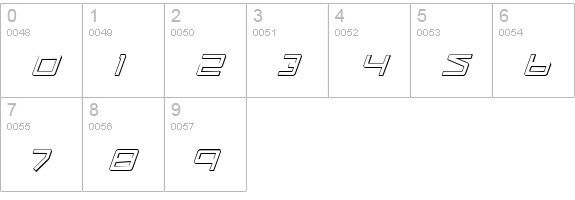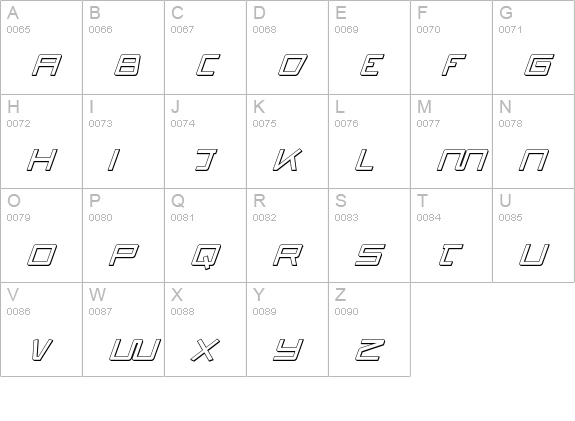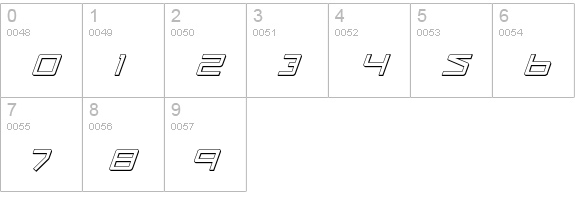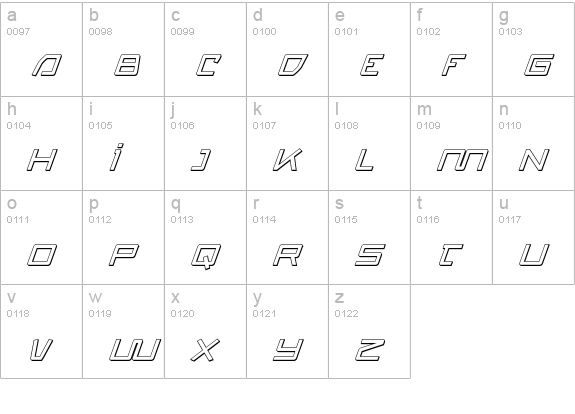
Quasitron 3D Italic Font Details
Quasitron 3D Italic is a distinctive, italic variant in the Quasitron typeface family \xE2\x80\x94 well suited to design and typography projects.
Quasitron 3D Italic font is a stunning display font that exudes a futuristic and edgy vibe. Its unique 3D effect adds depth and dimension to any design project, making it stand out from the crowd. The italic styling gives a touch of elegance and sophistication, perfect for adding a modern twist to your creative endeavors. This font is not only visually striking but also incredibly versatile, suitable for a wide range of design purposes including logos, headlines, posters, and more. Whether you're working on a tech-related project or simply want to make a bold statement, Quasitron 3D Italic font is sure to elevate your work to the next level. And the best part? Quasitron 3D Italic font is available for free download at FontsMarket.com! Don't miss out on this amazing opportunity to enhance your designs with this exceptional font. Download it now and let your creativity soar with Quasitron 3D Italic font.